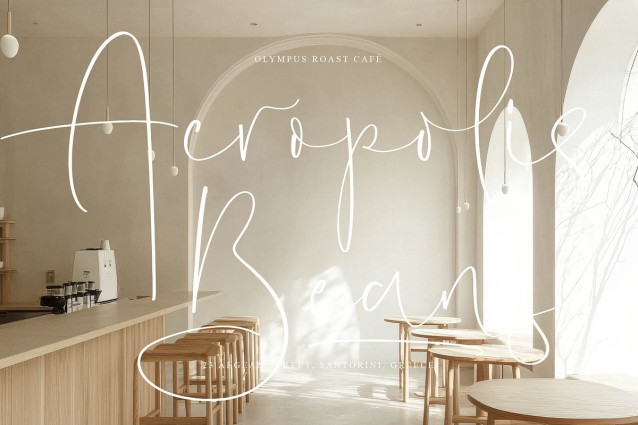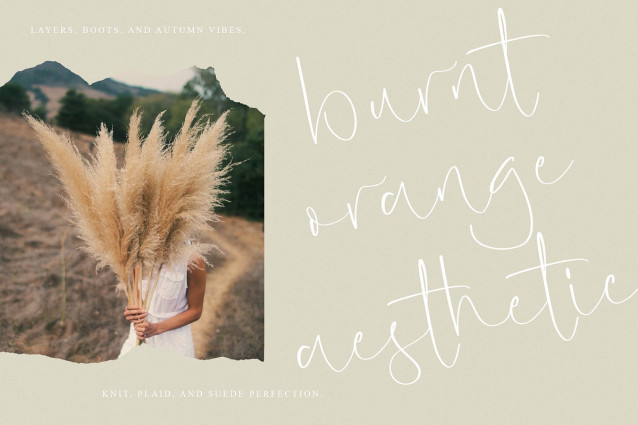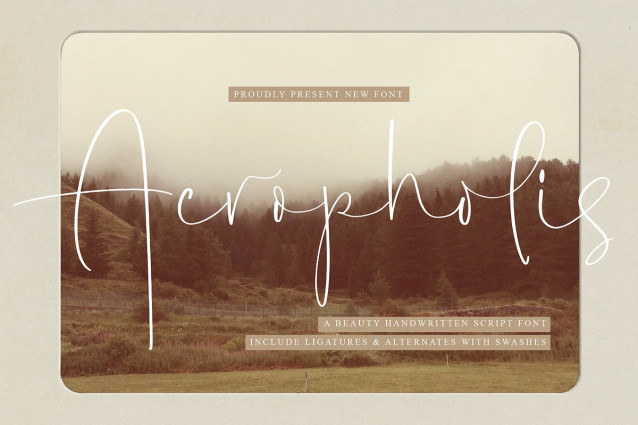
Acropholis Handwritten Font
Acropholis Handwritten Font – A Beauty Handwritten Script, from Operatype, perfect for any project like: logos, branding projects, homewares designs, product packaging, mugs, quotes, posters, shopping bags, t-shirts, covers books, business cards, invitation cards, greeting cards, labels, photography, watermarks, special events and all your other luxury projects that require a premium taste.